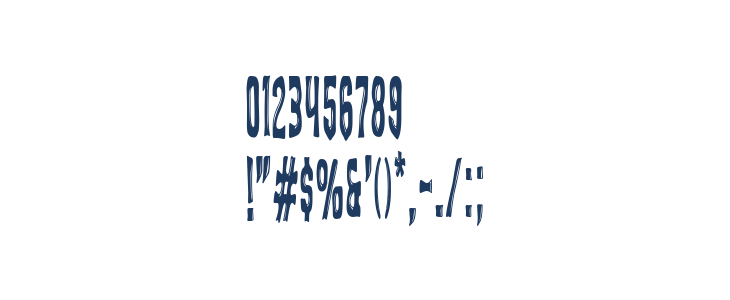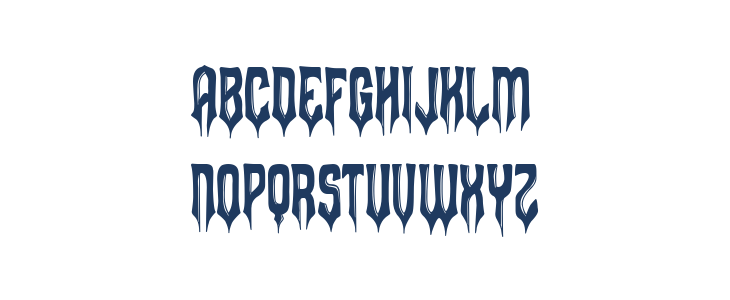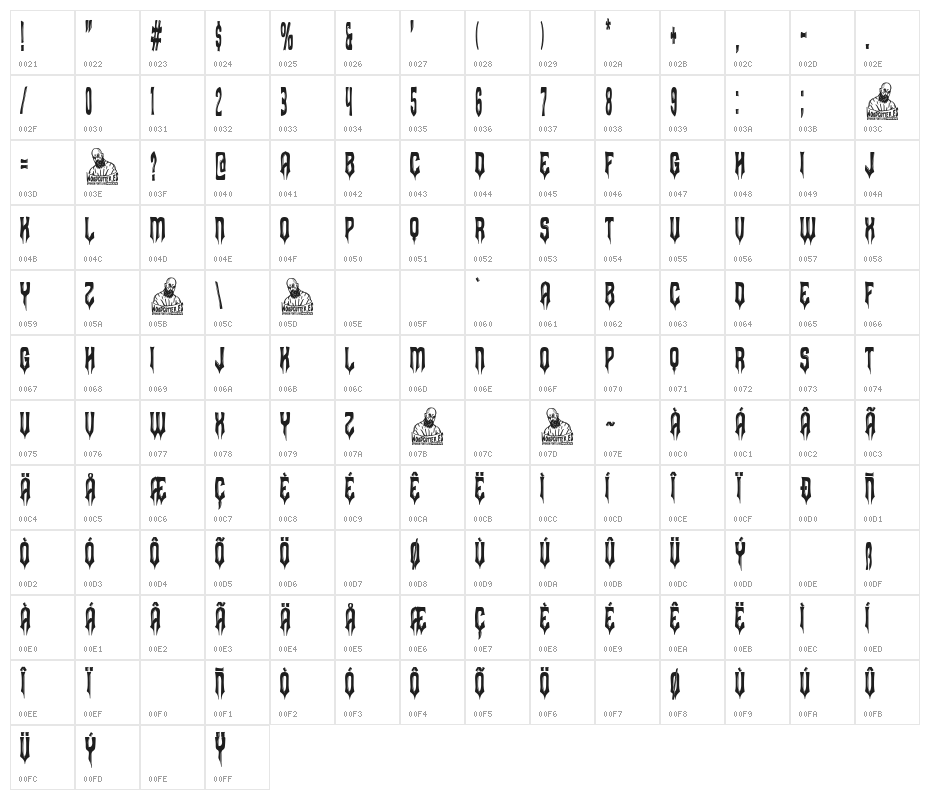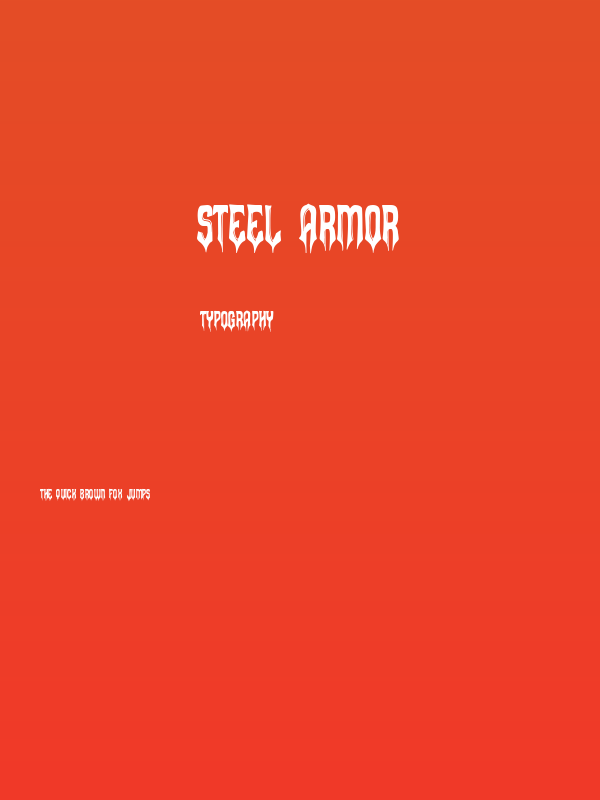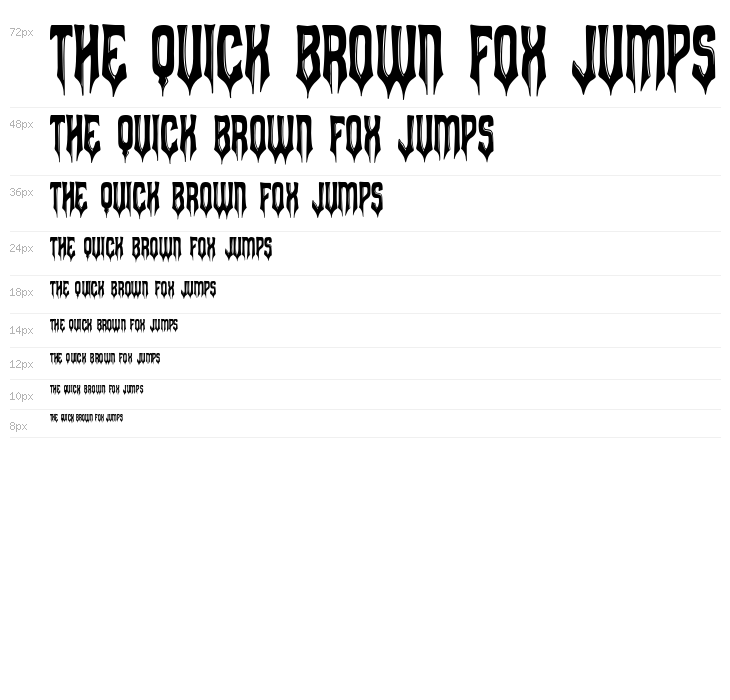
Steel Armor Font
Steel Armor Description
| Overall Style | Decorative, Gothic, Aggressive |
| Use Case | Logos, Headlines, Posters, Themed Branding |
| Proposed Projects | Heavy metal band logos, video game titles, movie posters, fantasy or medieval-themed branding, event flyers. |